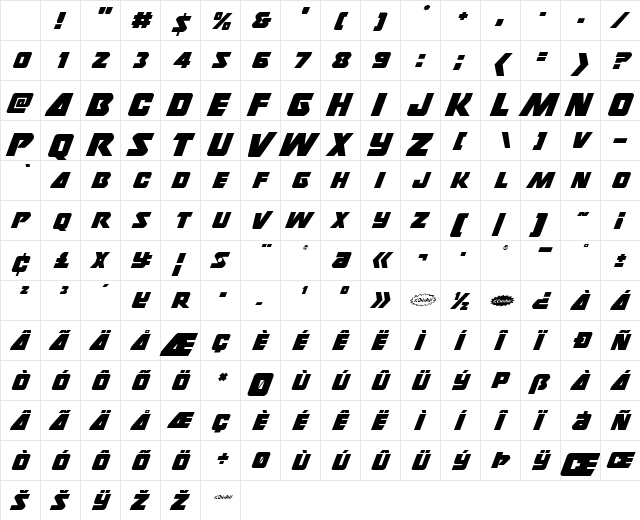
Thunderstrike Regular Free Font
Thunderstrike Regular
Thunderstrike Family
Design Context for Thunderstrike
Thunderstrike is a composed and adaptable typeface that performs quietly and consistently across a wide range of design contexts.